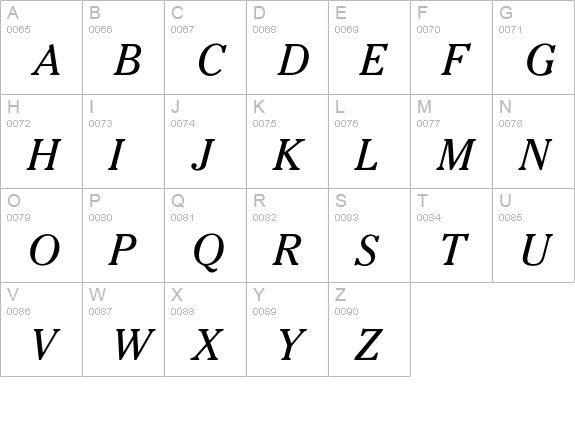
CheltenhamBookItalic Font Details
CheltenhamBookItalic is a stunning and elegant typeface that exudes sophistication and charm. Its delicate slant and graceful curves make it perfect for adding a touch of refinement to any design project. Whether you're creating invitations, logos, or promotional materials, CheltenhamBookItalic will elevate your work to the next level. The best part? CheltenhamBookItalic is available for free download at FontsMarket.com. You can easily access this beautiful font and start using it in your projects without any cost. Don't miss out on the opportunity to enhance your designs with the timeless beauty of CheltenhamBookItalic. Download it today and let your creativity shine!